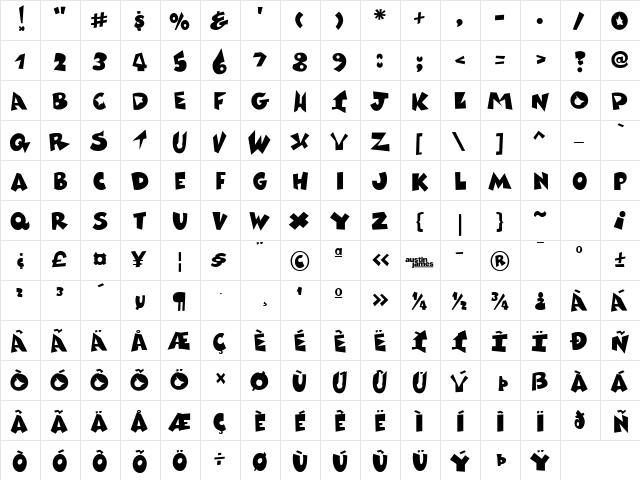
Vaca Vaca
Design Context for Vaca Typeface
Vaca is a composed and adaptable typeface that performs quietly and consistently across a wide range of design contexts.